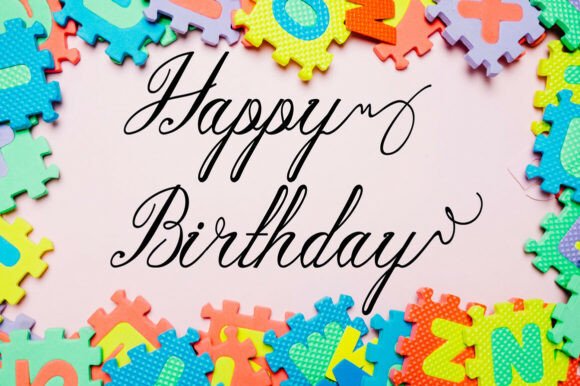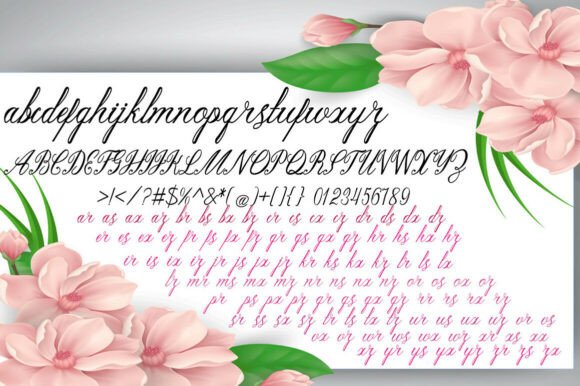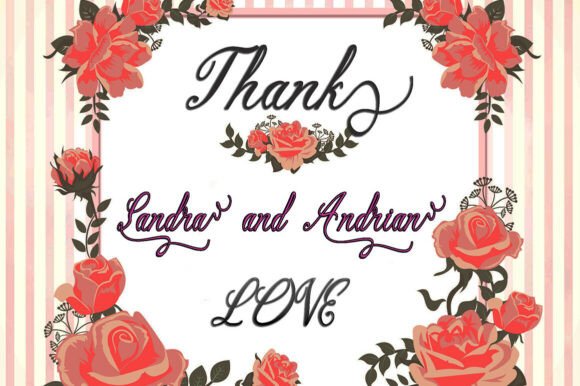
Introduction to Santhia Font
As a designer, there’s nothing quite like the rush of inspiration that comes from discovering a new, high-quality font to elevate your creative project. For me, that moment came when I stumbled upon the stunning Santhia Font, a beautiful script calligraphy design that has been captivating designers with its unique, modern forms and natural writing style.
Whether you’re working on a bespoke invitation, crafting a custom greeting card, or developing a brand’s visual identity, Santhia Font is an invaluable design resource that can add a touch of sophistication and elegance to any project. With its versatility and high-quality design, it’s no wonder that Santhia Font has become a go-to choice for designers seeking to create truly exceptional work.
Key Features of Santhia Font
- High-quality, elegant script font ideal for creative projects requiring a sophisticated touch.
- Designed with a high level of detail, making it perfect for use in invitations, logos, and other design elements.
- Unique, cursive design style sets it apart from other fonts, making it a standout choice for designers seeking a distinctive look.
Honest Review: Santhia Font
I recently came across the Santhia Font and I have to say, it’s been a game-changer for my creative projects. As a designer, I’m always on the lookout for high-quality design resources that can elevate my work, and Santhia Font definitely fits the bill.
What works well about this font is its sleek, modern aesthetic, which is perfect for any design project that requires a touch of sophistication. I particularly love the way it looks on a transparent background, which adds an extra layer of depth and visual interest to my designs.
Here are some of the key features that I appreciate about Santhia Font:
- High-quality design with a modern aesthetic
Of course, no font is perfect, and Santhia Font has its limitations. For example, it may not be the best choice for projects that require a more playful or whimsical feel. Additionally, the font may not be as versatile as some other options on the market.
Tips for Getting the Most Out of Santhia Font
To get the most out of Santhia Font, use it in combination with other design elements to create a cohesive look. Experiment with different font sizes, colors, and styles to add depth and visual interest to your design. Santhia Font is a versatile font that can be used for a variety of creative projects, from business cards to website headers.
Santhia Font is commonly used for creating logo designs, business cards, and website headers. Its high-quality design and transparent background make it perfect for creating a professional-looking design that stands out from the crowd. Whether you’re working on a creative project or just need a reliable design resource, Santhia Font is a great choice.